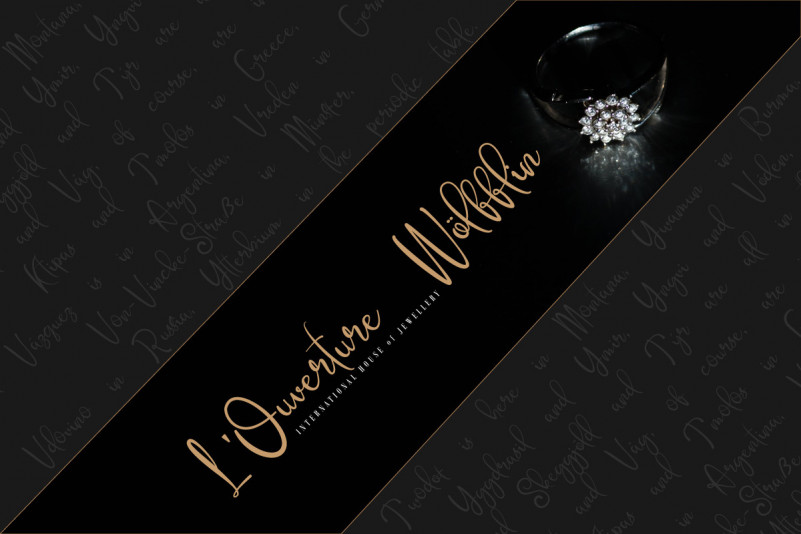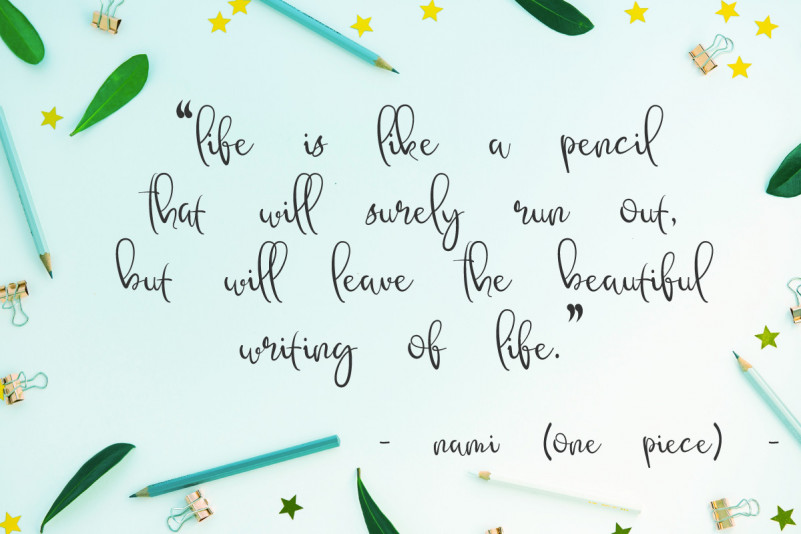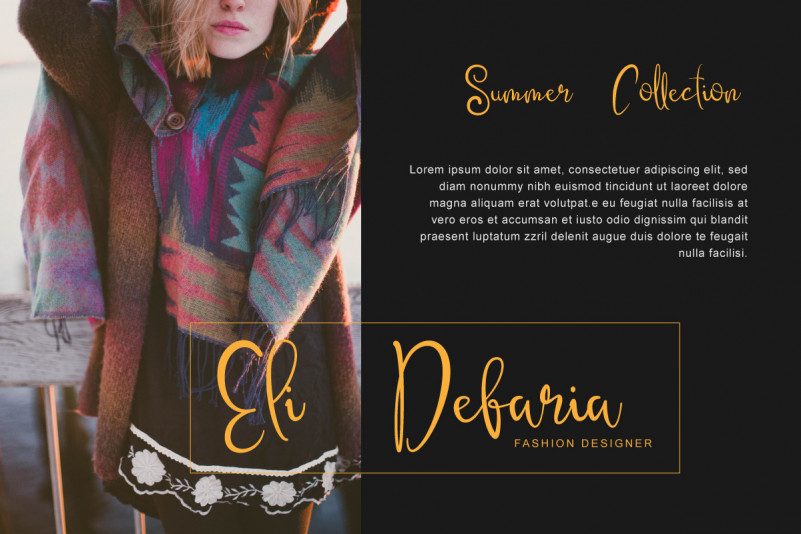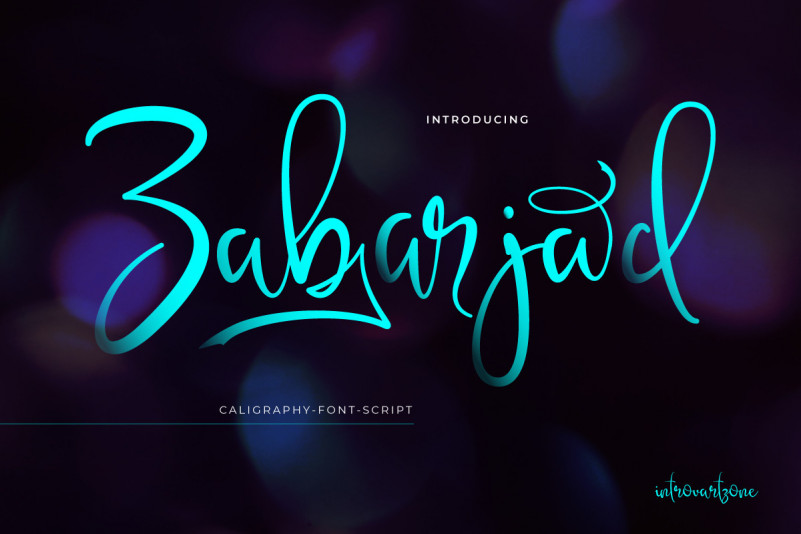
Zabarjad Handwritten Font
Introducing the Zabarjad Handwritten Script Font, with a beautiful handwriting style and impressed luxury. Zabarjad Handwritten Font Script can be used for various purposes such as wedding invitation, graphic design, print design, web design, logo, branding, and others.
Features :
– Upercase & lowercase
– Numeral & punctuation
– Ligatures & stylistic alternate
– Multi-language support